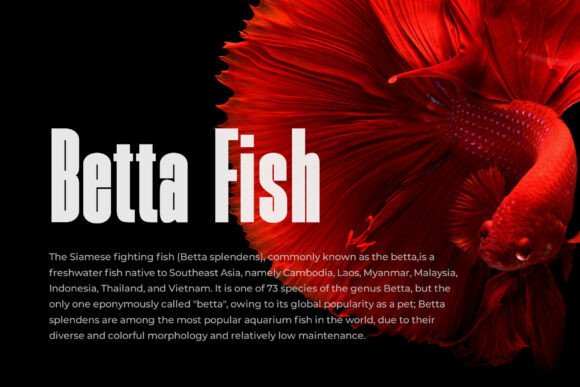
Discovering the Perfect Design Resource: Skinger Font
Have you ever been stuck on a creative project, unable to find the right font to bring your vision to life? I know I have. It’s that frustrating moment when you’ve poured your heart and soul into a design, only to realize that the font is holding it back. But what if I told you there’s a game-changing font that can elevate your design to the next level?
Enter the Skinger Font, a modern and sleek sans serif font designed for clarity and versatility. Its clean lines and balanced proportions make it perfect for branding, web design, and editorial use. With a minimalist aesthetic, this typeface brings a fresh, professional feel to any project. And the best part? It’s available for free download, making it an invaluable resource for designers looking to take their creative projects to the next level.
Key Features of Skinger Font
- Skinger Font is available in 7 different weights, ranging from Light to Bold, providing versatility for various design applications.
- Perfect for use in digital design, including logos, icons, and graphics, as well as print design, such as business cards and brochures.
Honest Review: Skinger Font
As a designer, I’m always on the lookout for high-quality design resources that can elevate my creative projects. Recently, I came across the Skinger Font, which caught my attention with its unique style and versatile nature. Here’s my honest review.
- The Skinger Font comes with a transparent background, making it easy to customize and integrate with any design project.
- The high-quality design ensures that the font looks professional and polished, even at larger font sizes.
- The Skinger Font may not be suitable for projects that require a more traditional or serif font style.
- The font may require some adjustments to get the desired look, as it can be quite bold and eye-catching.
Overall, the Skinger Font is a great addition to any designer’s toolkit. While it may have some limitations, its unique style and high-quality design make it a valuable resource for creative projects. With a bit of experimentation, designers can unlock the full potential of this font and take their designs to the next level.
Tips for Getting the Most Out of Skinger Font
To get the most out of the Skinger Font, use it in combination with other design elements, such as graphics and images. Experiment with different font sizes and colors to create a unique look.